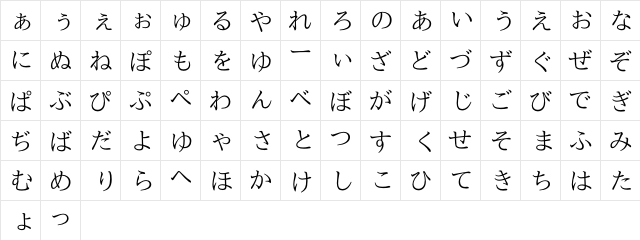
nipponica hiragana
Design Context for nipponica Typeface
nipponica is a composed and adaptable typeface that performs quietly and consistently across a wide range of design contexts.